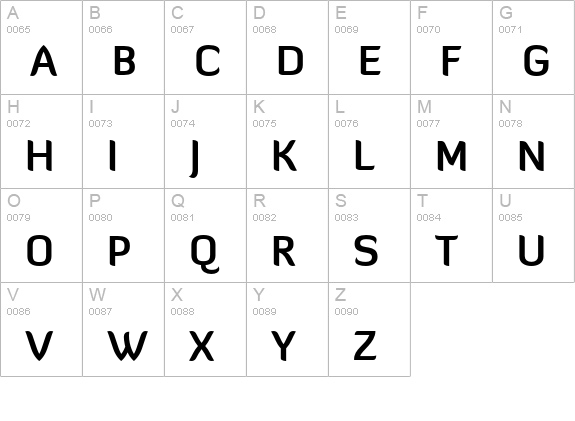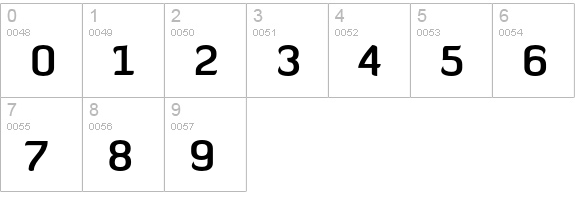
Diavlo Bold Regular Font Details
Diavlo Bold Regular is a strong, high-contrast variant in the Diavlo typeface family \xE2\x80\x94 well suited to headlines, attention-grabbing titles, and strong calls-to-action.
Diavlo Bold Regular font is a striking and dynamic typeface that commands attention with its bold, confident presence. With its strong and modern design, this font is perfect for headlines, titles, posters, and other graphic design projects that require a powerful visual impact. The geometric shapes and sharp lines of Diavlo Bold Regular give it a contemporary and edgy feel, making it a versatile choice for a wide range of design applications. Whether you're looking to make a statement or add a touch of boldness to your designs, this font is sure to deliver. Best of all, Diavlo Bold Regular is available for free download at FontsMarket.com. So you can easily add this eye-catching font to your collection without any cost. Don't miss out on the opportunity to enhance your designs with the bold and impactful style of Diavlo Bold Regular font today!